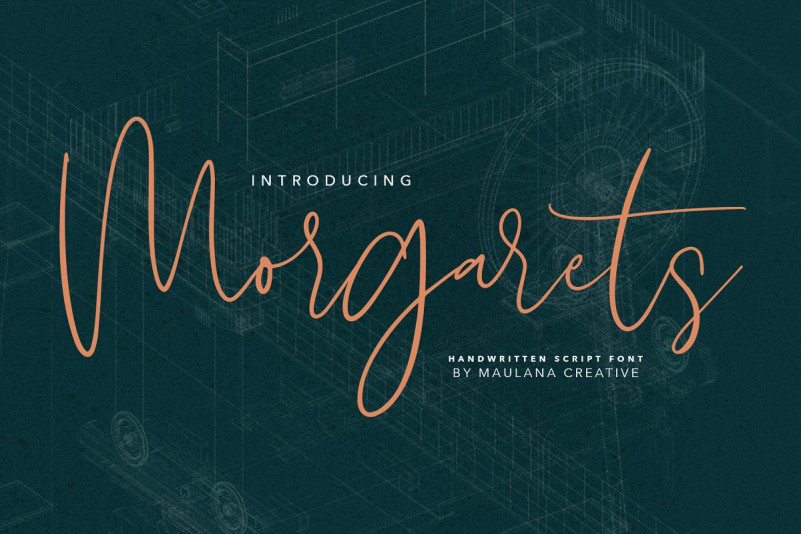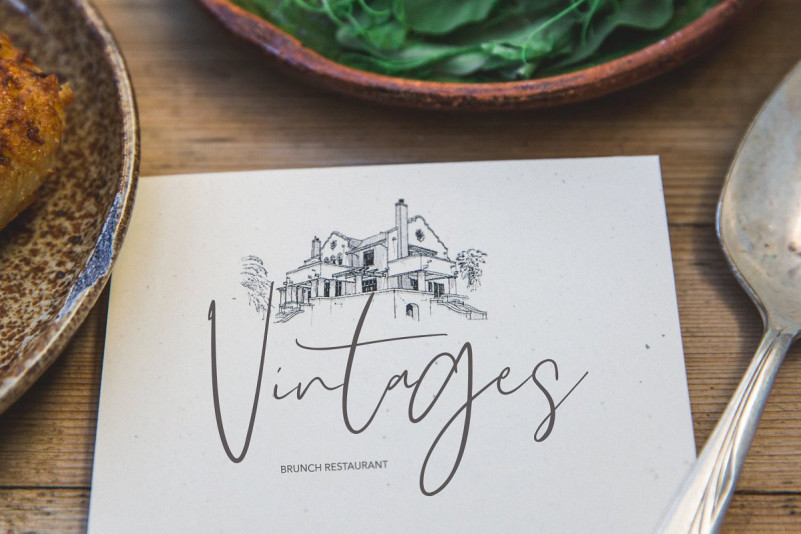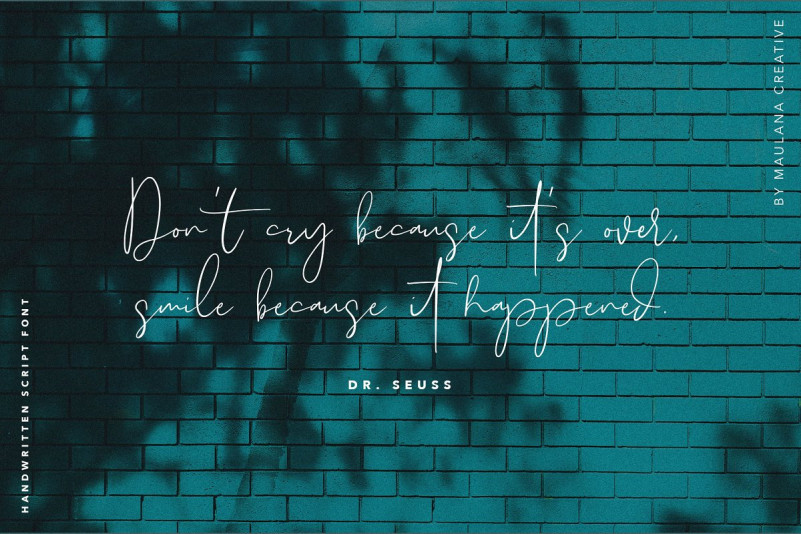
Morgarets Font
The Morgarets is a Modern Handwriting font, every letters have been carefully crafted and look like a beautiful. Morgarets is perfectly suited to signature, stationery, logo, typography quotes, magazine or book cover, website header, clothing, branding, packaging design and more. Include a Ligatures Style.